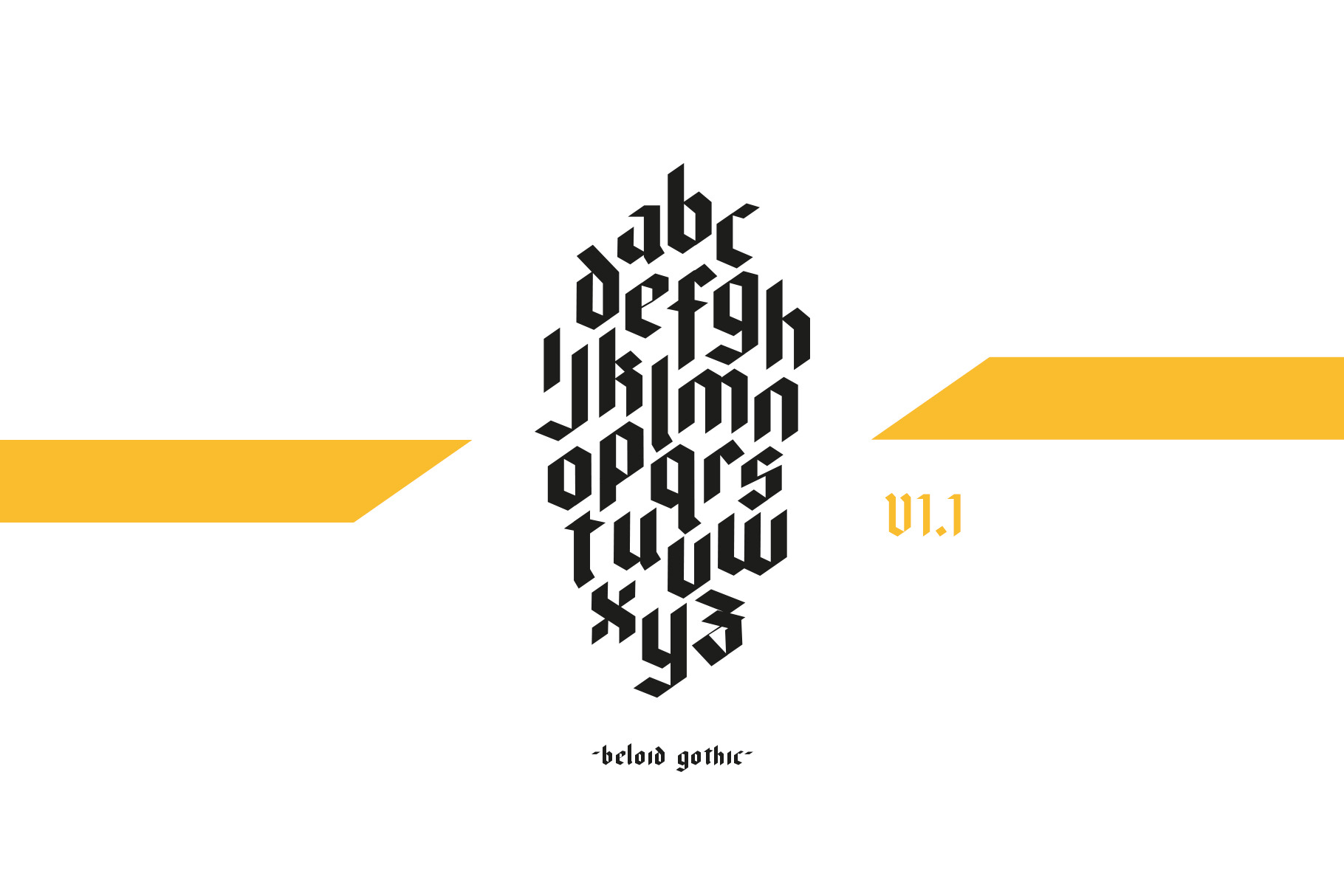
Beloid - Gothic Blackletter Font
Beloid Gothic - A Modern Blackletter Typeface
Beloid - having a shape like that of an arrow
Beloid Gothic is a modern blackletter typeface. Strong and geometric with a fraktur style using a 35 degree angled nib. Taking inspiration from medieval scriptures, Beloid was designed with bold titles and logotype in mind.
This statement font can be used for posters, magazines and to create logos.
This set includes uppercase and lowercase letters, numerals, a range of punctuation and full European character set.
- Full European character set